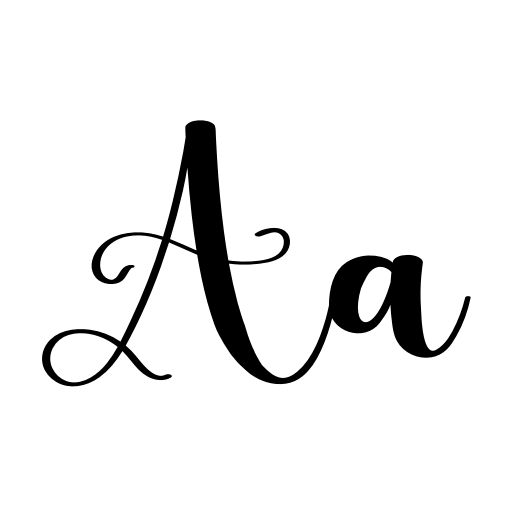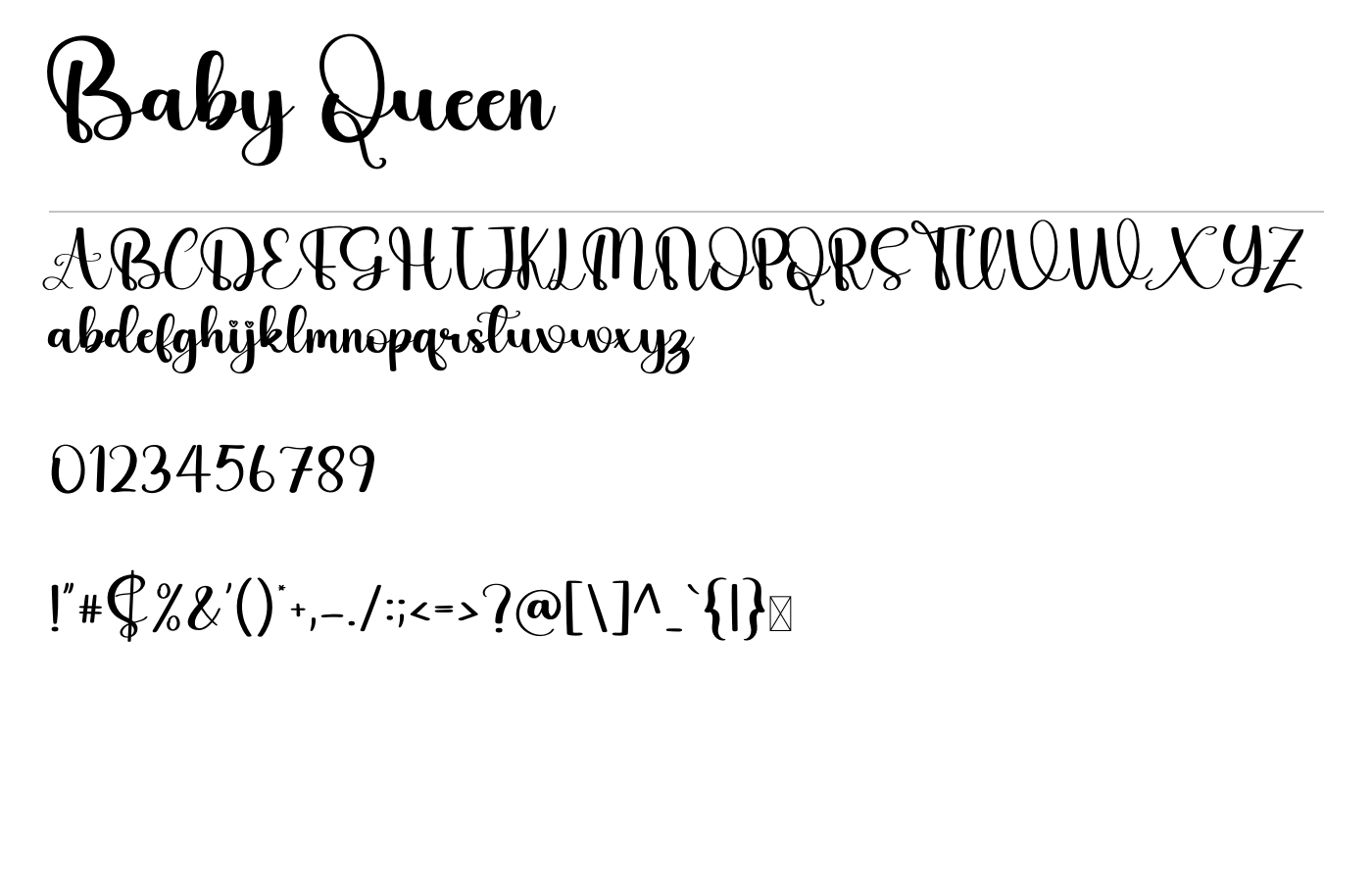
Baby Queen is a playful and elegant script font featuring a mix of thick and thin strokes with smooth, flowing curves that evoke a hand-lettered feel. Its tall, graceful letterforms with decorative loops and swashes make it perfect for feminine branding, invitations, and headlines that need a touch of charm and sophistication. This font works beautifully in fashion, beauty, and lifestyle designs where a stylish and approachable personality is desired.
Baby Queen Font
About Baby Queen Font